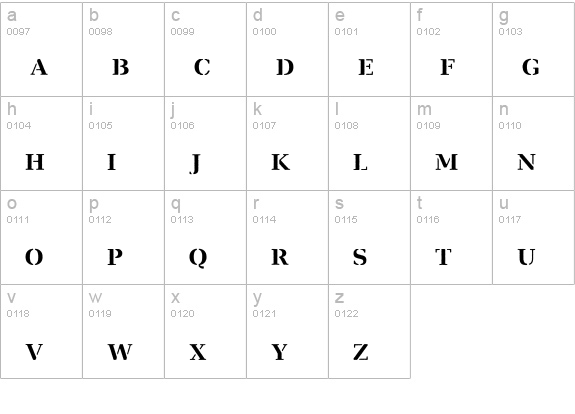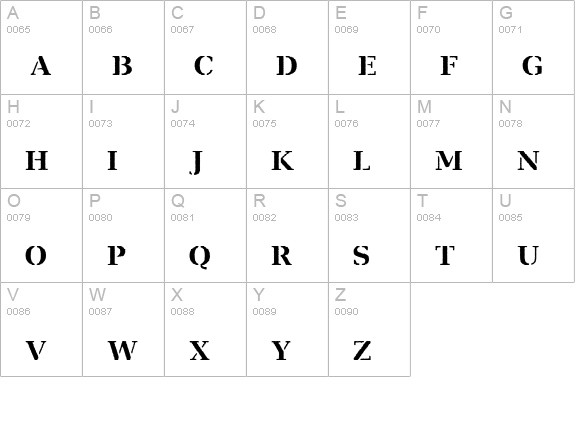
Ver Army Font Details
Ver Army font is a stunning display typeface that exudes strength and boldness. Its unique design is reminiscent of military aesthetics, making it perfect for projects that require a touch of toughness and resilience. With its sharp edges and strong lines, Ver Army commands attention and adds a powerful presence to any design. This font is not only visually striking, but it also offers a sense of versatility. Whether used for headlines, logos, posters, or other graphic design purposes, Ver Army stands out and leaves a lasting impression. One of the best things about Ver Army is that it is free! Yes, you read that right. This incredible font is freely available to download at FontsMarket.com. Now you can add this exceptional typeface to your font library without breaking the bank. Don't miss out on the opportunity to enhance your designs with Ver Army font. Download it for free at FontsMarket.com and let your creativity soar. Embrace the power and impact of Ver Army and bring your projects to a whole new level.